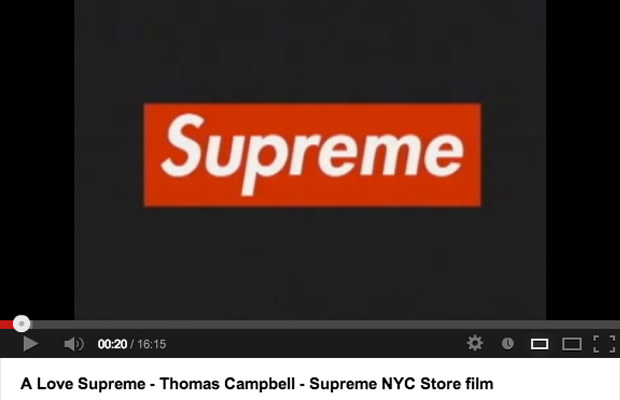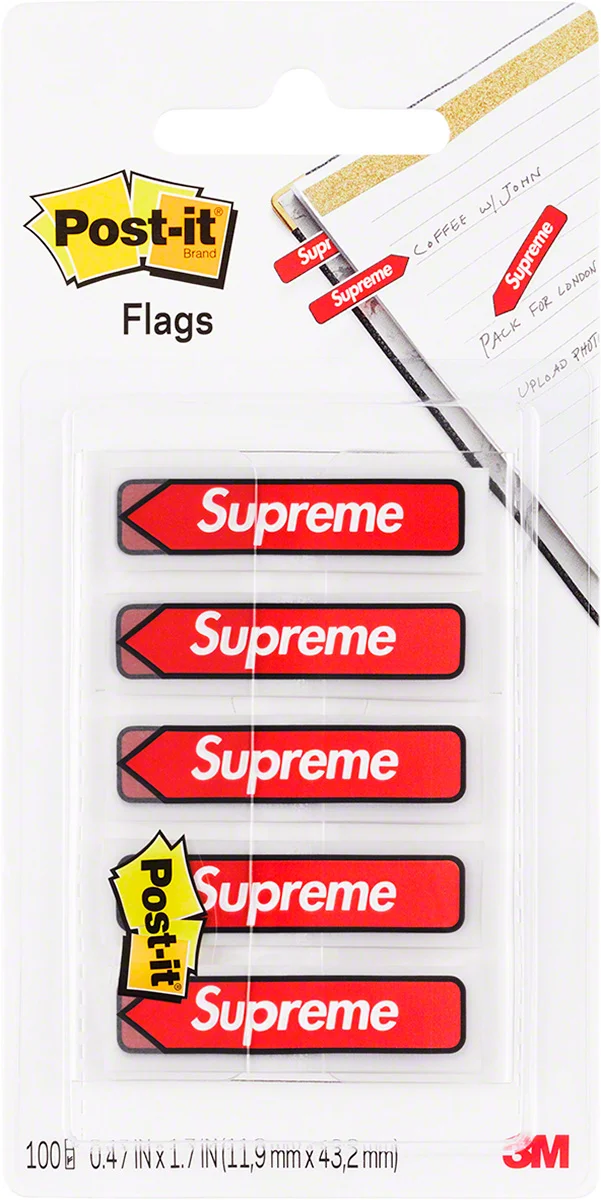
Supreme Nyc Font
Supreme is a clothing brand founded in new york city.
Supreme nyc font. Supreme is an apparel brand established in ny city. The font used for its logotype is very similar to futura bold italic. The paper must be opaque unglazed and not less than 60 pounds in weight and shall have margins of at least three.
The titles of the tv sequence the huge bang thought are all produced in rage italic. This font belongs to typeface font family. This is the font which is used in the famous fashion brand supreme located in new york city.
The logo is a familiar white on red supreme in futura bold oblique font in italics. Its highly readable yet commands an air of authority with letters that take up more space than tnr. Paul renner was the one who took the charge for designing and releasing it for the first time during 1927 via bitstream.
The creme de la creme of legal fonts century schoolbook is used by no less an authority than the us. A famous clothing brand from new york city that skateboarding hip hop punk rock and other items feature this typeface as their primary logo font. The text lettering employing for the supreme logo is futura bold italic font.
Supreme font family is well known and easy to understand typeface all the times. Supreme secretly supplied clothing to harmony korines and larry clarks 1994 film kids gaining chloe sevigny. The official website of supreme.
The font used for its logotype is similar to futura bold italic. By thesapphirerose may 18 2015. Century schoolbook 12 point.